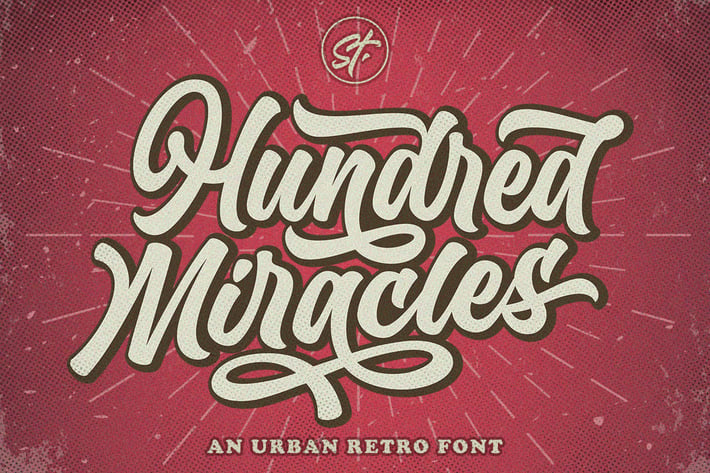
Hundred Miracles Urban Retro Font
The Hundred Miracles Font is an urban retro font with the style like a logotype lettering. was created to help you designing logotype or lettering style for your Brand or your clients,
and you also can use it for designing all of the graphic stuff such as badge, sign, packaging, headline, title, Poster, etc.
The Hundred Miracles was designed for any characters such as strong, confidence, dynamic, readable, Energetic, dynamic, etc.
it has an extensive lingual support, covering European and Asian Latin scripts. The font contains all characters you'll ever need, including all punctuation and numbers.
Alternates, ligature, swash